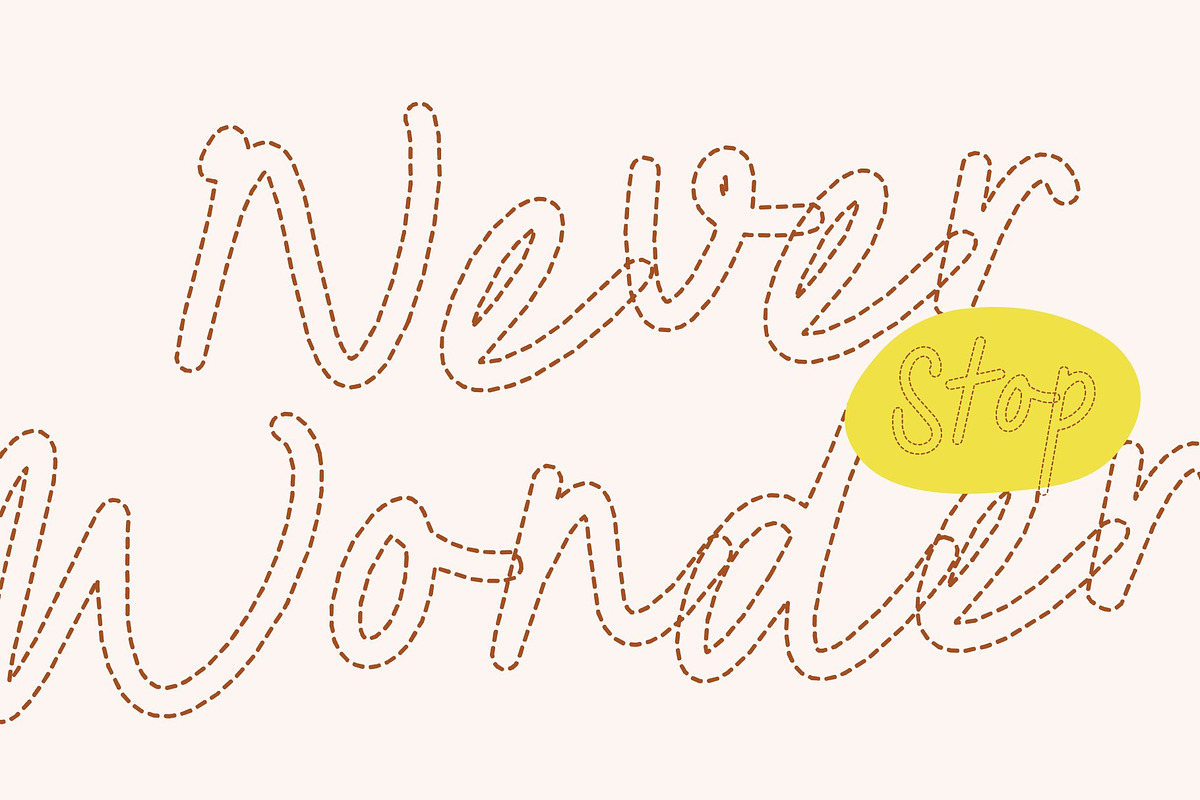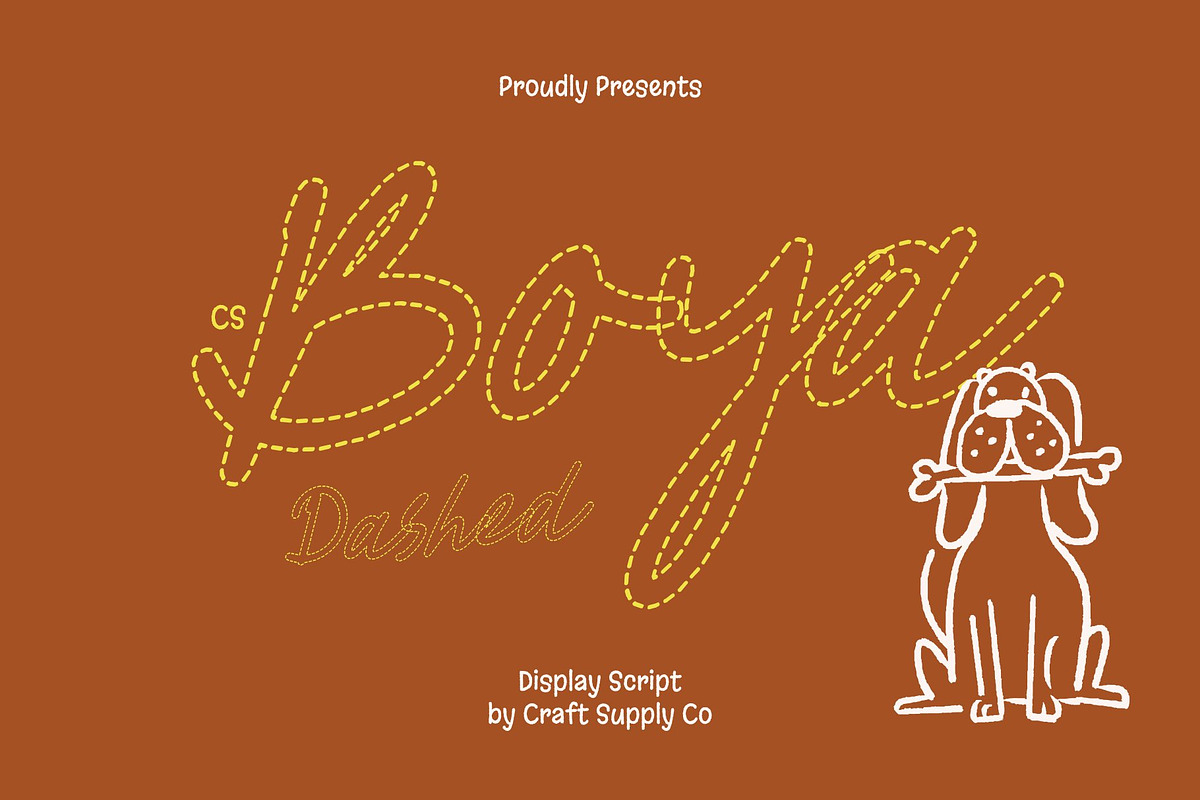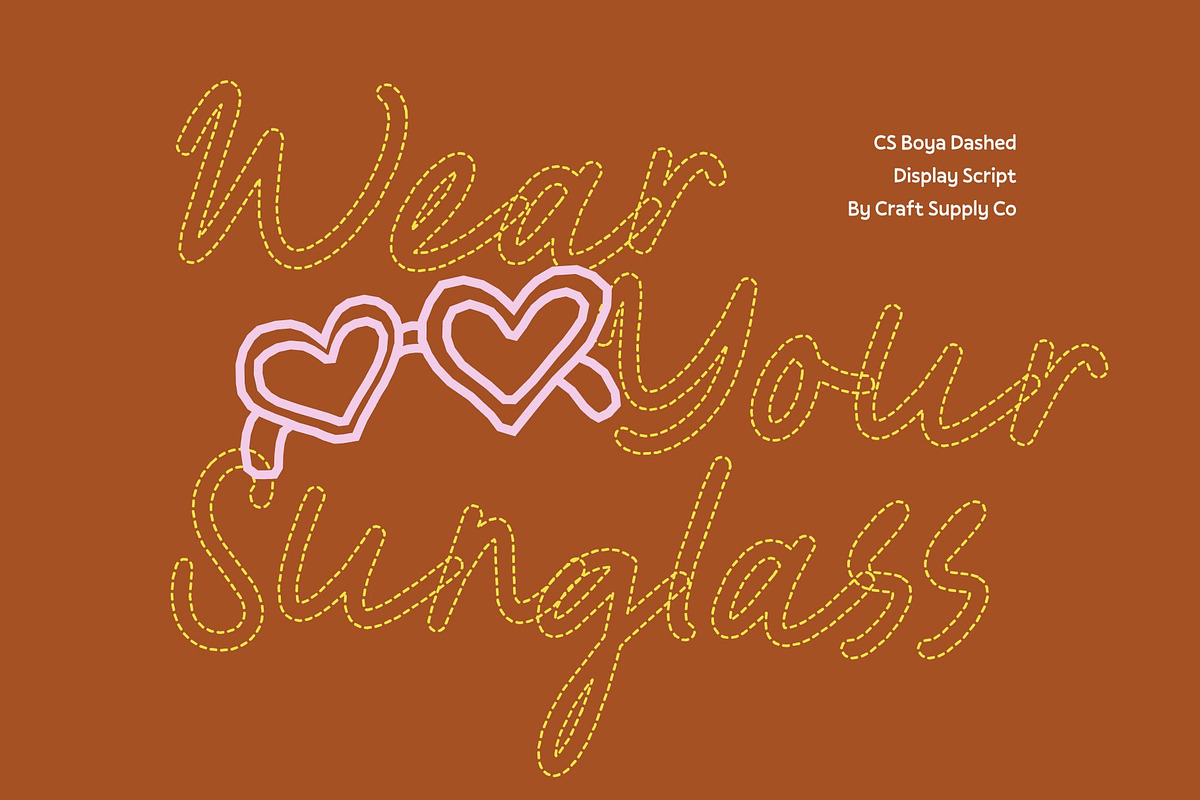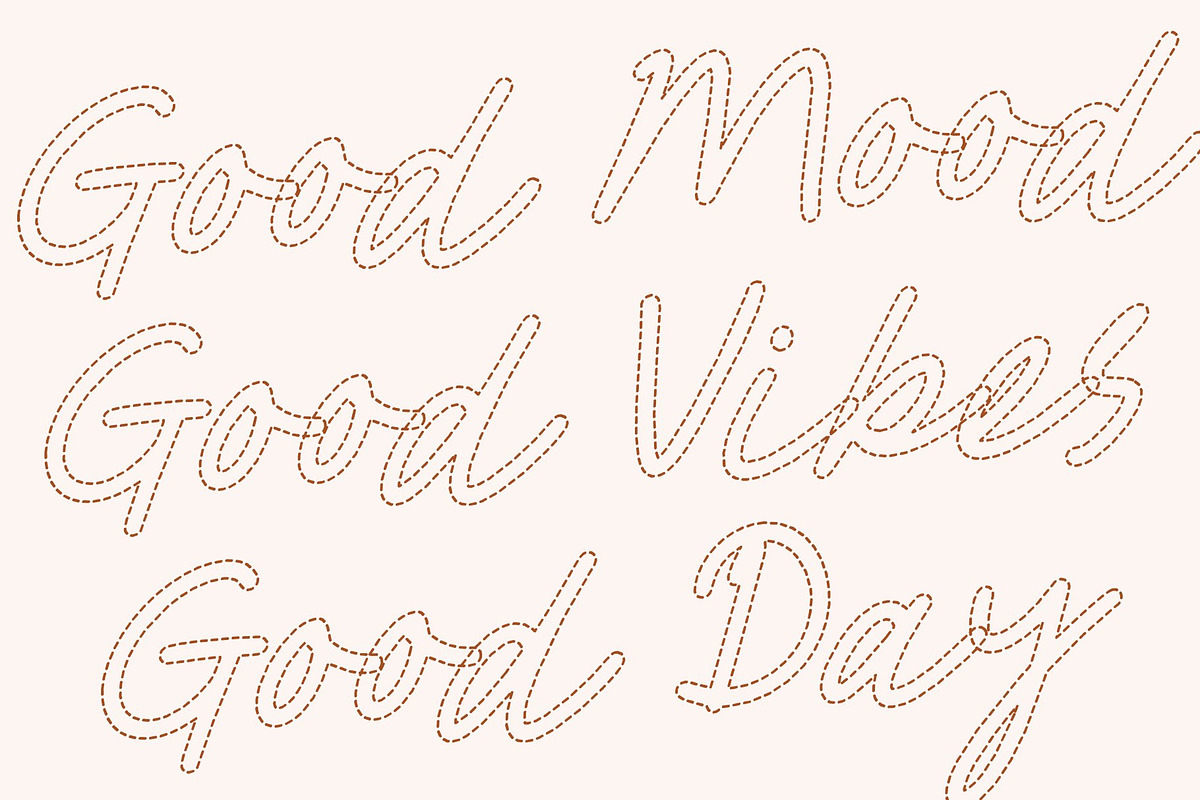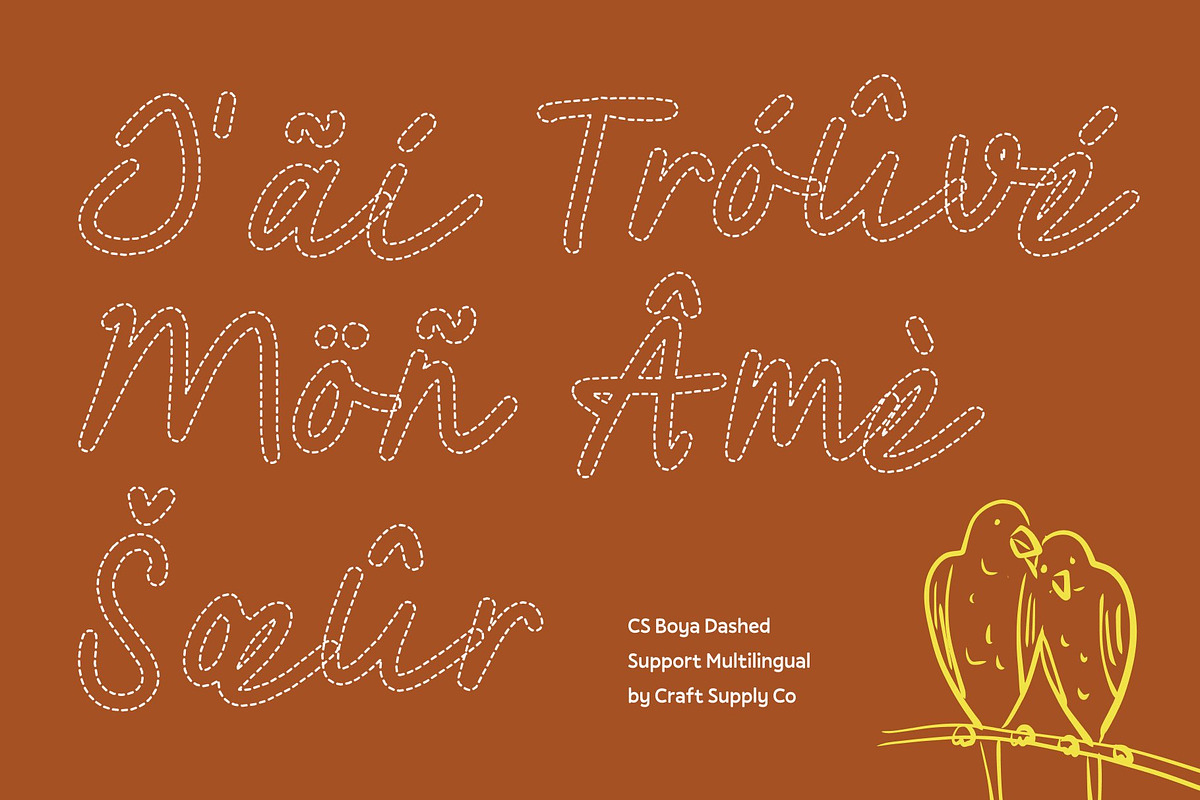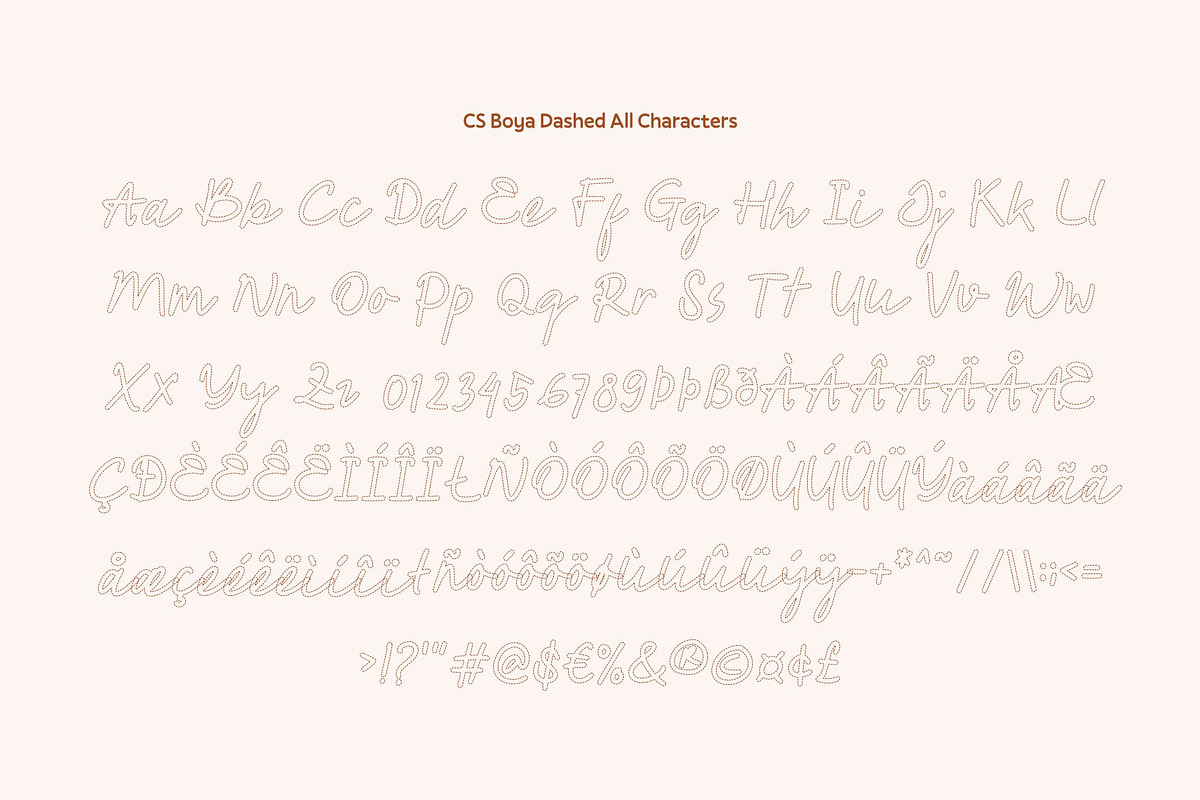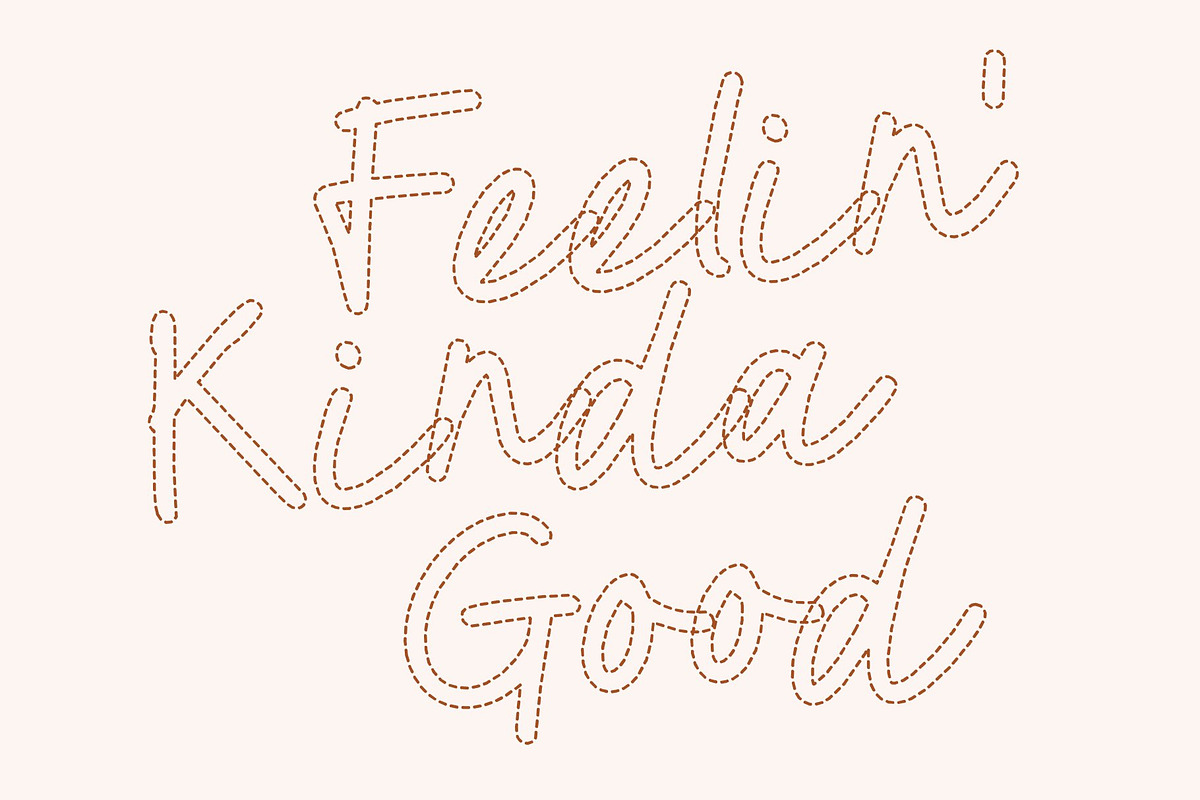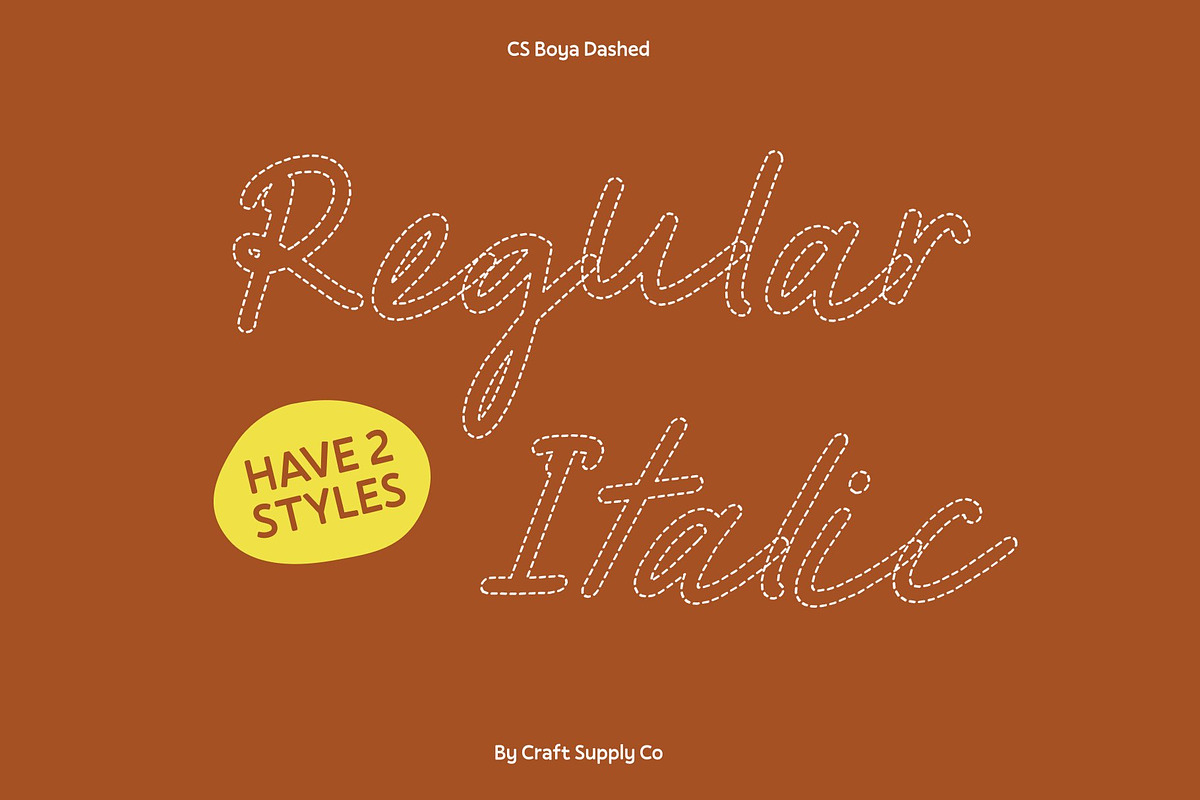
CS Boya Dashed
CS Boya Dashed – Grace in Every Line: Monoline Script Font with Elegant Flow
Timeless Beauty in Motion This font captures refined elegance through smooth monoline strokes and a flowing handwritten rhythm. Each curve moves effortlessly, creating graceful motion that feels romantic and modern at the same time. The dashed styling transforms the strokes into delicate broken lines, adding a light, artistic texture that feels creative and relaxed while preserving its sophisticated charm.
Graceful Curves and Refined Balance Carefully crafted with consistent line weight, this font balances fluid movement with structural harmony. The gentle curves bring a natural handwritten touch while maintaining clarity and legibility. The dashed structure introduces a subtle handcrafted feel, giving the script a unique personality that remains polished and elegant.
Perfect for Invitations, Branding, and Editorials From wedding invitations and fashion logos to luxury packaging and editorial titles, this font adds a refined flourish to any project. Its elegant flow complements both minimalist and decorative layouts, making text feel stylish, expressive, and visually engaging.
Radiate Sophistication and Charm More than just a script font, this font celebrates beauty in motion. With romantic lines and timeless appeal, it transforms words into graceful visual expressions perfect for creatives seeking modern elegance with a soft, handcrafted touch.
CS Boya Dashed Regular
CS Boya Dashed Italic